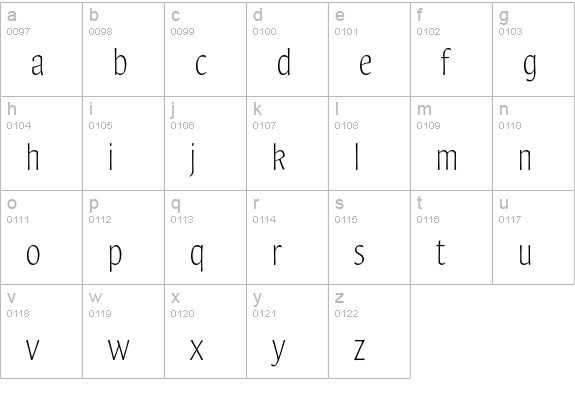
SamSans-Thin Font Details
SamSans-Thin is a delicate, low-contrast variant in the SamSans typeface family \xE2\x80\x94 well suited to fashion editorial, minimal branding, and high-contrast display.
Introducing SamSans-Thin, a sleek and contemporary font that effortlessly combines modern simplicity with timeless elegance. This font exudes a sense of sophistication and refinement, making it the perfect choice for any design project requiring a touch of class. SamSans-Thin is characterized by its slender and delicate letterforms, which give it a distinct and captivating presence. Its graceful curves and clean lines create a harmonious balance, resulting in a font that is both visually striking and easy on the eyes. One of the standout features of SamSans-Thin is its versatility. Whether you're designing a logo, crafting a headline, or creating a stylish invitation, this font adapts effortlessly to any creative endeavor. Its refined appearance adds a touch of professionalism and polish to any design, elevating it to new heights. But what truly sets SamSans-Thin apart is its availability for free. That's right, this exceptional font can be freely downloaded at FontsMarket.com, offering designers and enthusiasts alike the opportunity to enhance their work without any cost. With just a few clicks, you can add this remarkable typeface to your collection and unleash its potential across all your design projects. So why wait? Experience the allure of SamSans-Thin today and unlock a world of possibilities. Whether you're an experienced designer or just starting out, this font is sure to inspire creativity and elevate your work to new levels of excellence. Don't miss out on this incredible opportunity to enhance your designs with the beauty and elegance of SamSans-Thin. Download it for free at FontsMarket.com and embark on a design journey like no other.